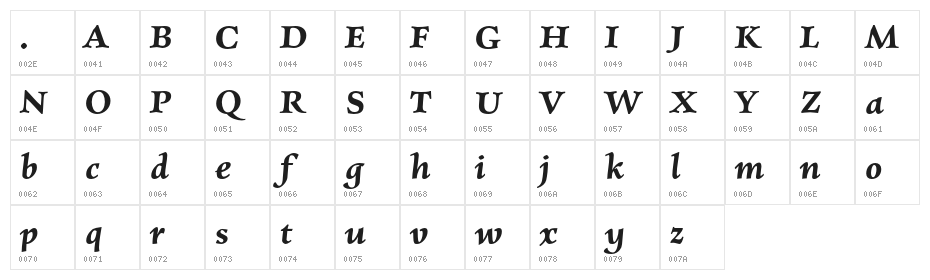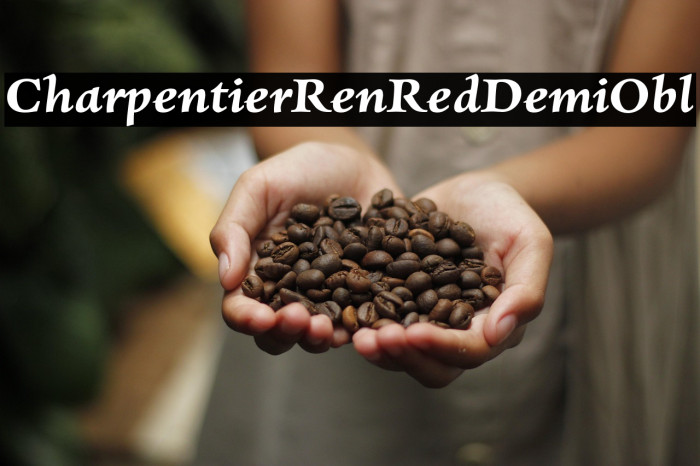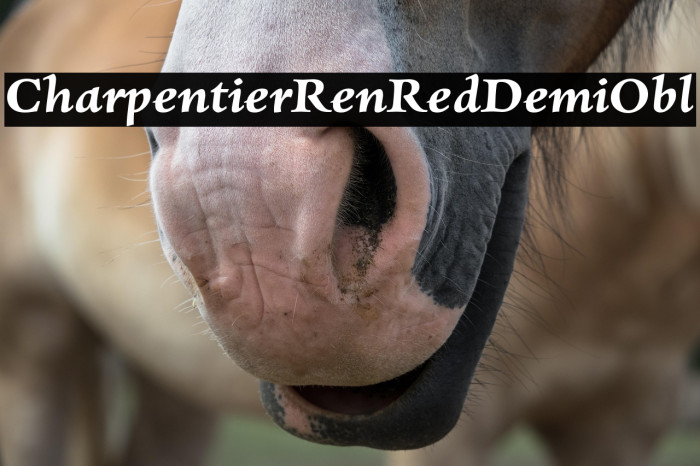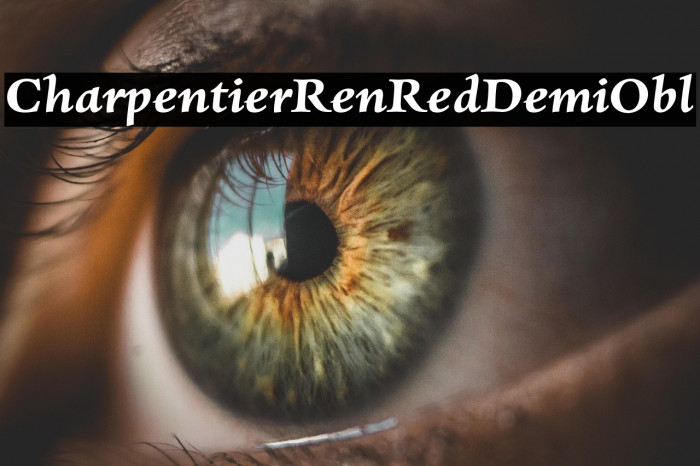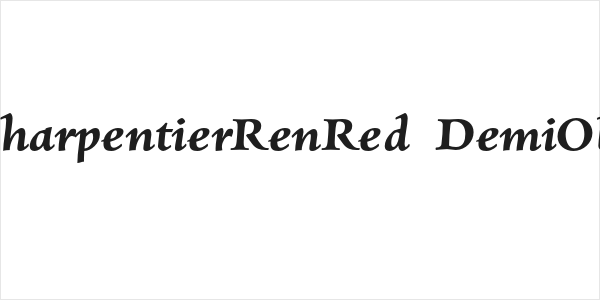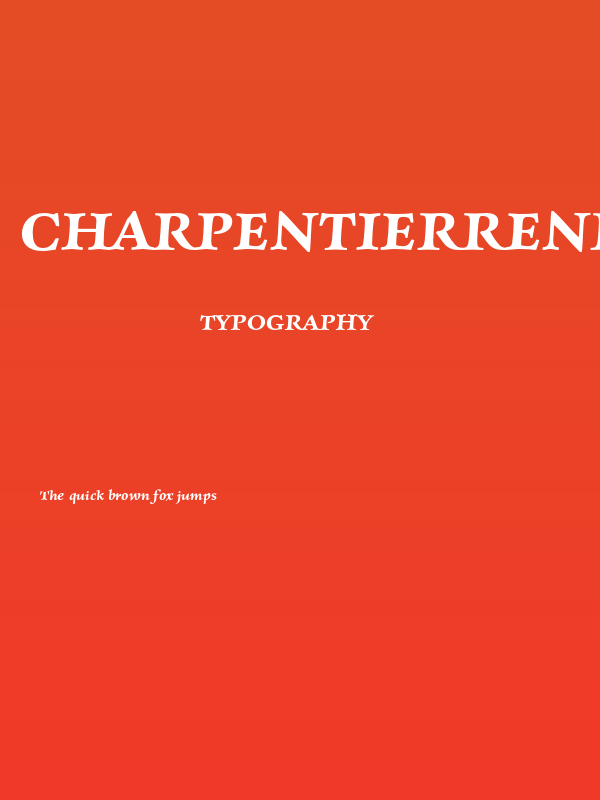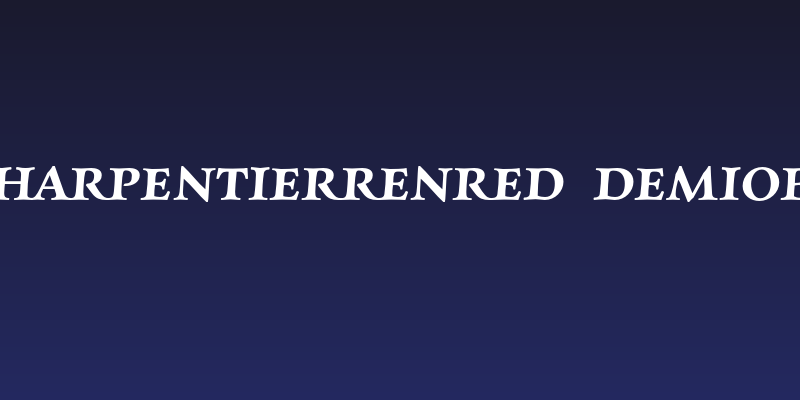
CharpentierRenRed-DemiObl Font
CharpentierRenRed-DemiObl Description
This font exhibits a classic and elegant style with a distinct calligraphic influence. The uppercase letters are bold and slightly condensed, featuring sharp serifs that add a touch of sophistication. The lowercase letters maintain a consistent flow, with gentle curves and a slight slant that enhances readability. The numerals are well-proportioned, aligning seamlessly with the overall aesthetic. Special characters are crafted with the same attention to detail, ensuring they complement the alphabetic characters. This font's unique blend of traditional and modern elements makes it versatile for various design applications.
| Proposed Projects | Ideal for wedding invitations, luxury branding, editorial design, and elegant packaging. |